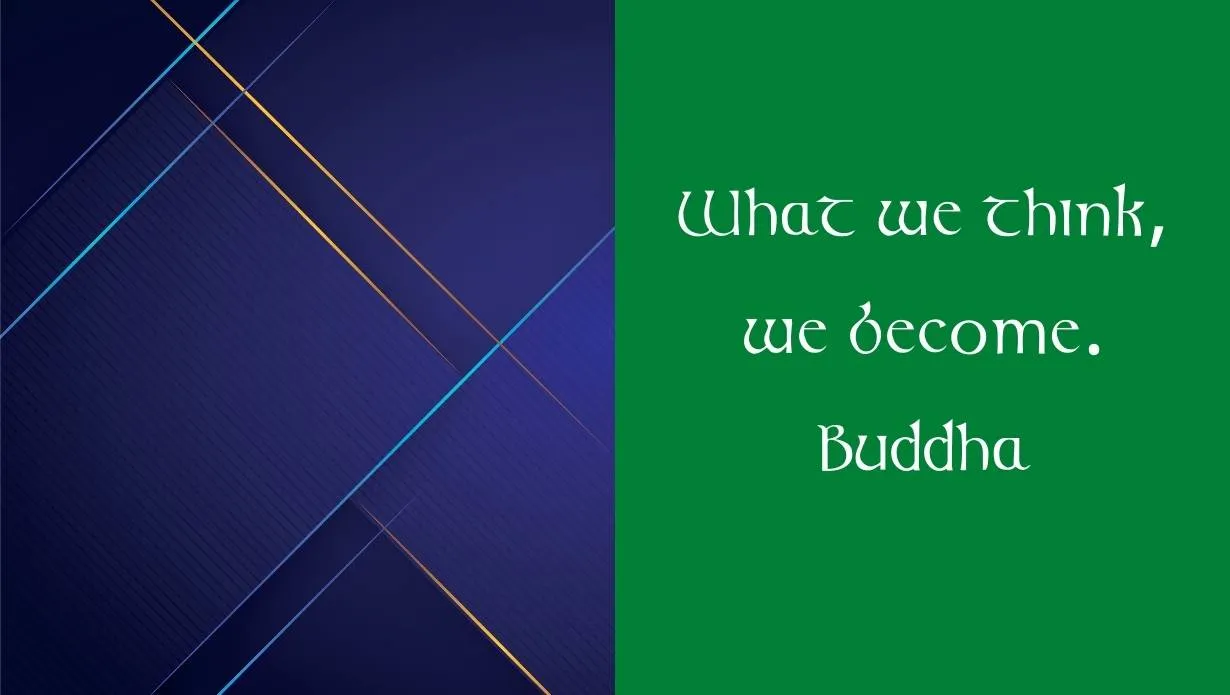
Irish Font is a popular display typeface used by many people. The Irish typeface is a widely used font that can be seen in a lot of places. It is simple and easy to read, which makes it perfect for any document or website. However, because it is such a popular font, it can be hard to stand out from the rest if you’re not using it correctly.
It is available in different styles, weights, and widths. The most popular weight is the regular weight, which is perfect for most purposes.
| Name | Irish Font |
| Designer | David Cohen |
This typeface is similar to some time later font. It has a complete set of characters including upper and lowercase letters, numbers, and symbols.